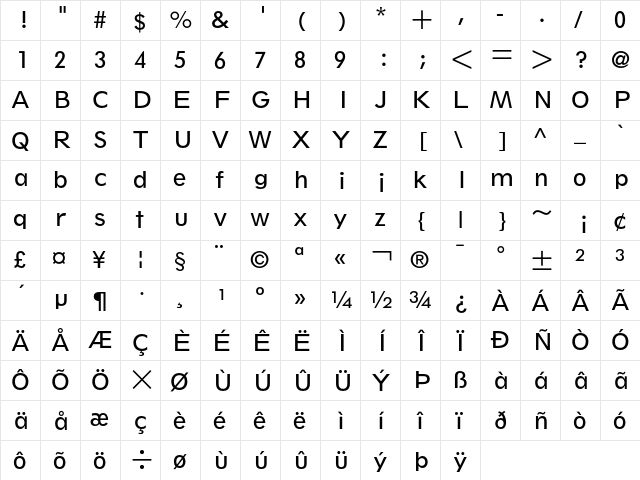
Spartan Book Classified
Design Context for Spartan Typeface
Spartan takes a measured approach to typography — its balanced proportions and neutral character make it a reliable workhorse for both digital and print work.